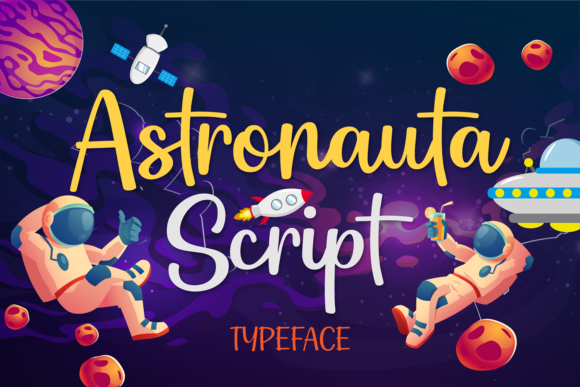
Welcome to the world of Astronauta Font, a captivating collection of elegant, flowing handwritten script fonts. With its unique character and charm, Astronauta promises to elevate your creative projects, making them stand out from the ordinary.
Journey into a realm of fancy military designs, where Astronauta Font reigns supreme. Its intricate strokes and dynamic curves capture the essence of military precision, adding a touch of sophistication to any project. Whether crafting logos, branding materials, or official documents, Astronauta Font will leave a lasting impression.
Indulge in the versatility of Astronauta Font, a masterpiece that seamlessly adapts to a wide range of design genres. From delicate wedding invitations to eye-catching blog headers, Astronauta Font possesses the versatility to transform your visions into reality. Elevate your branding, add a touch of flair to your social media posts, or create stunning posters that demand attention.
Immerse yourself in a symphony of beauty as Astronauta Font dances across your digital canvas. Its graceful lines and effortless flow create an enchanting aura, captivating your audience with its timeless charm. Experience the transformative power of Astronauta Font, a font that breathes life into your creative endeavors.